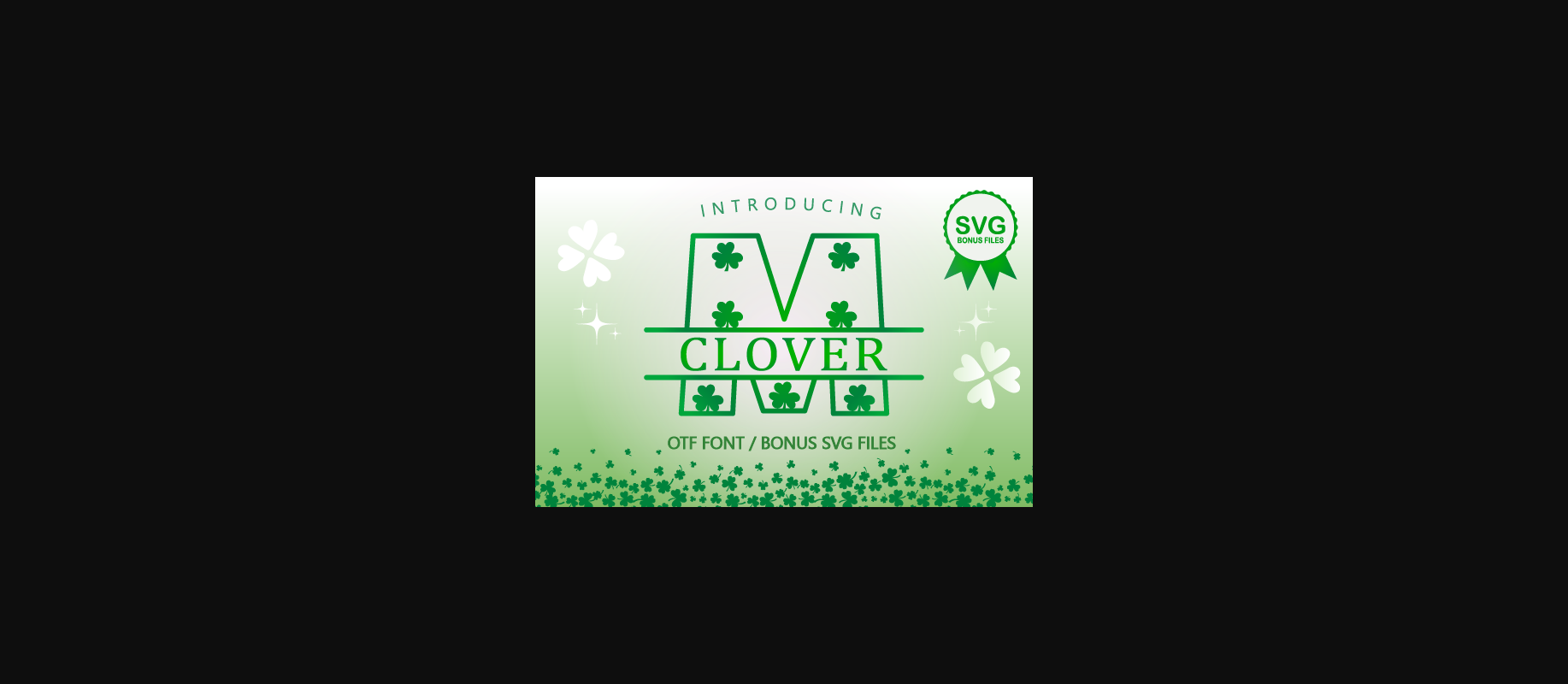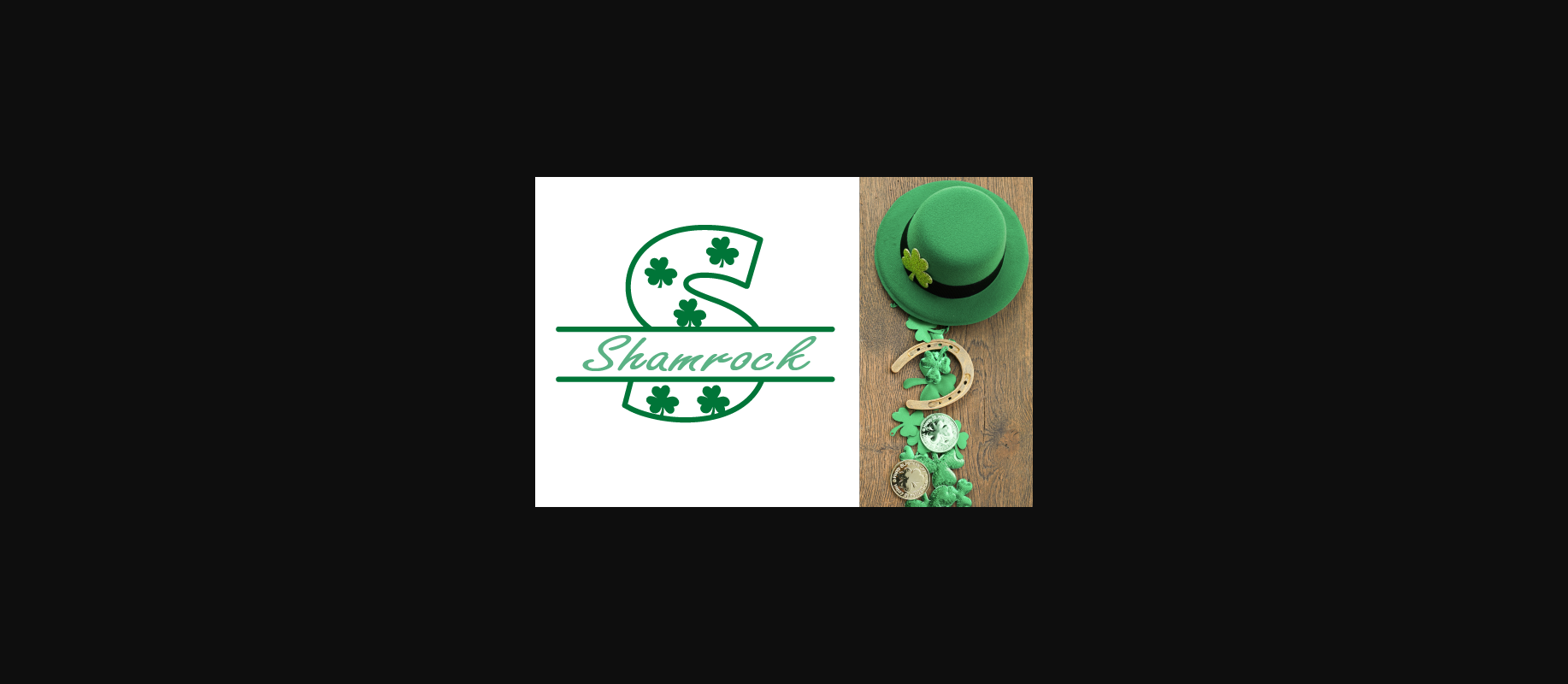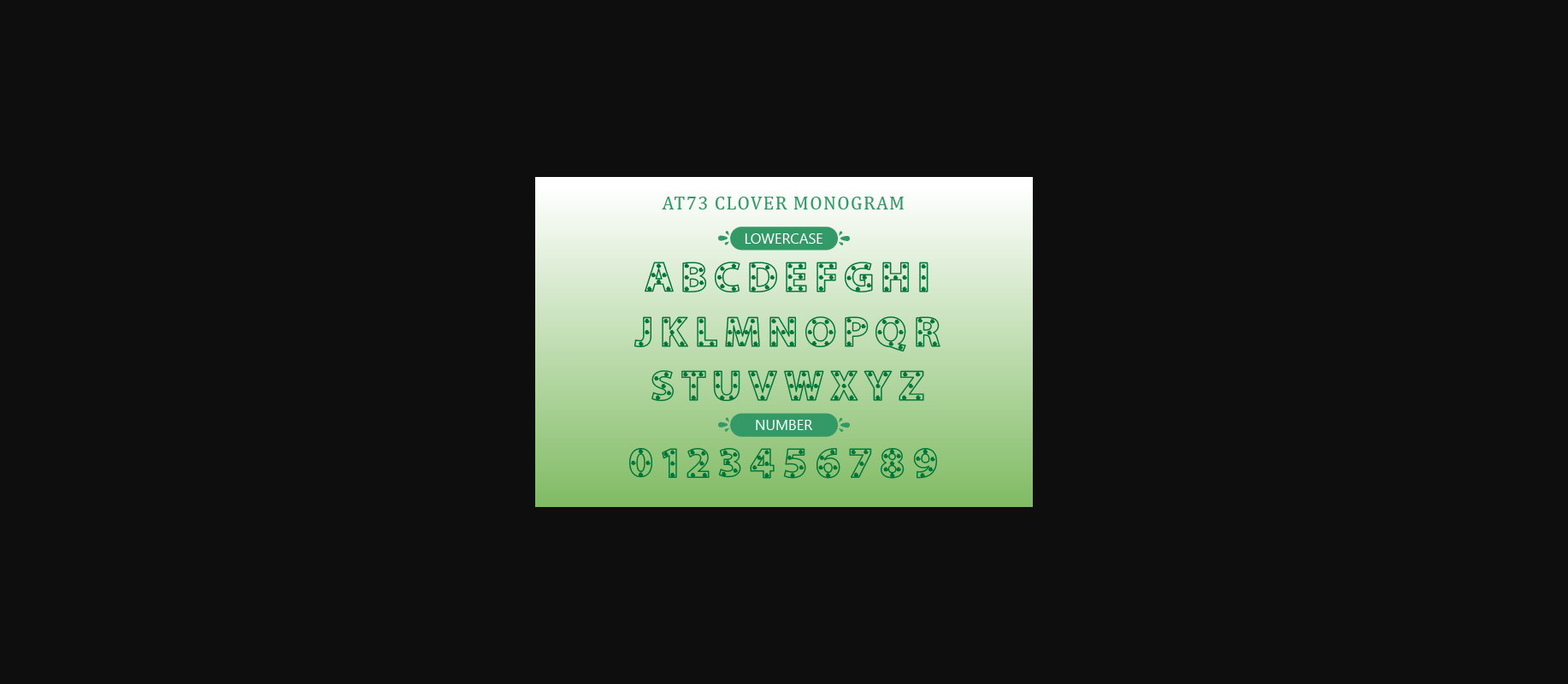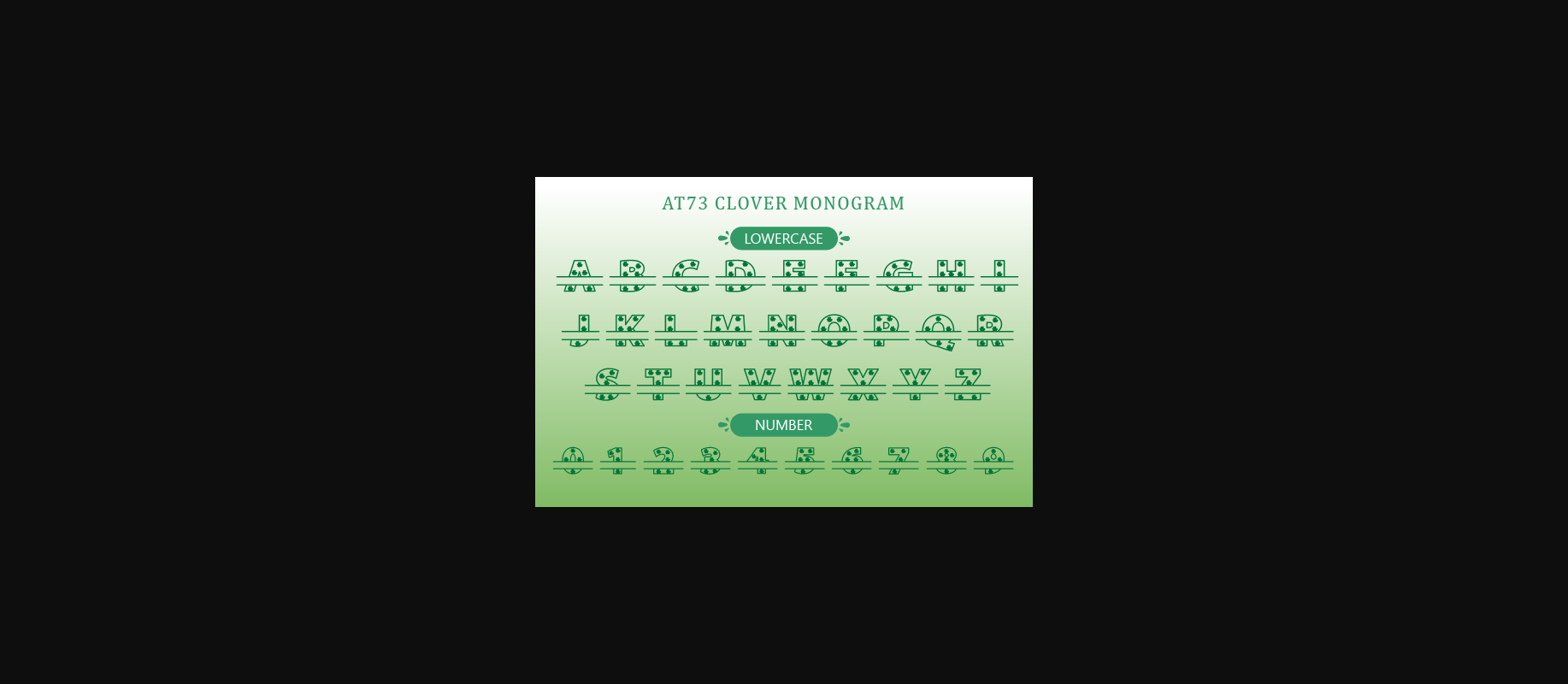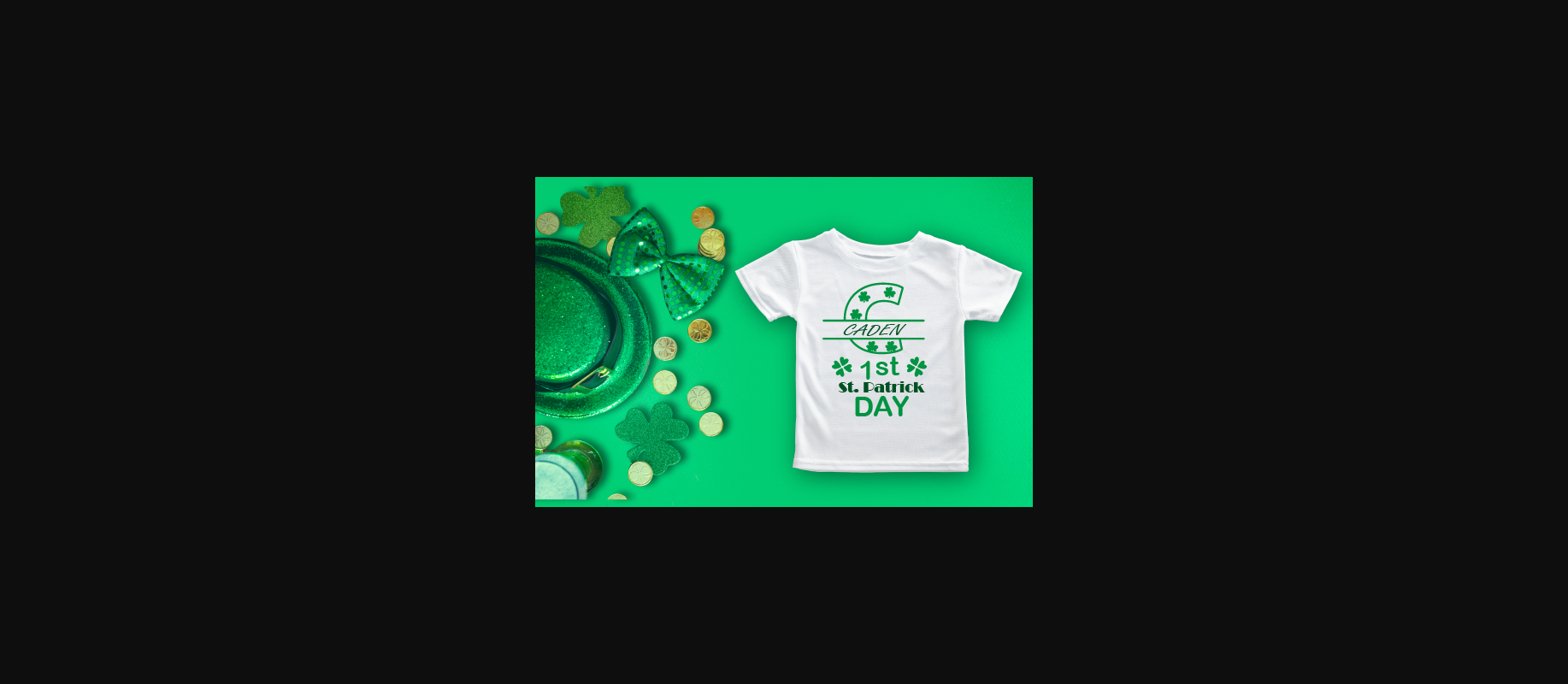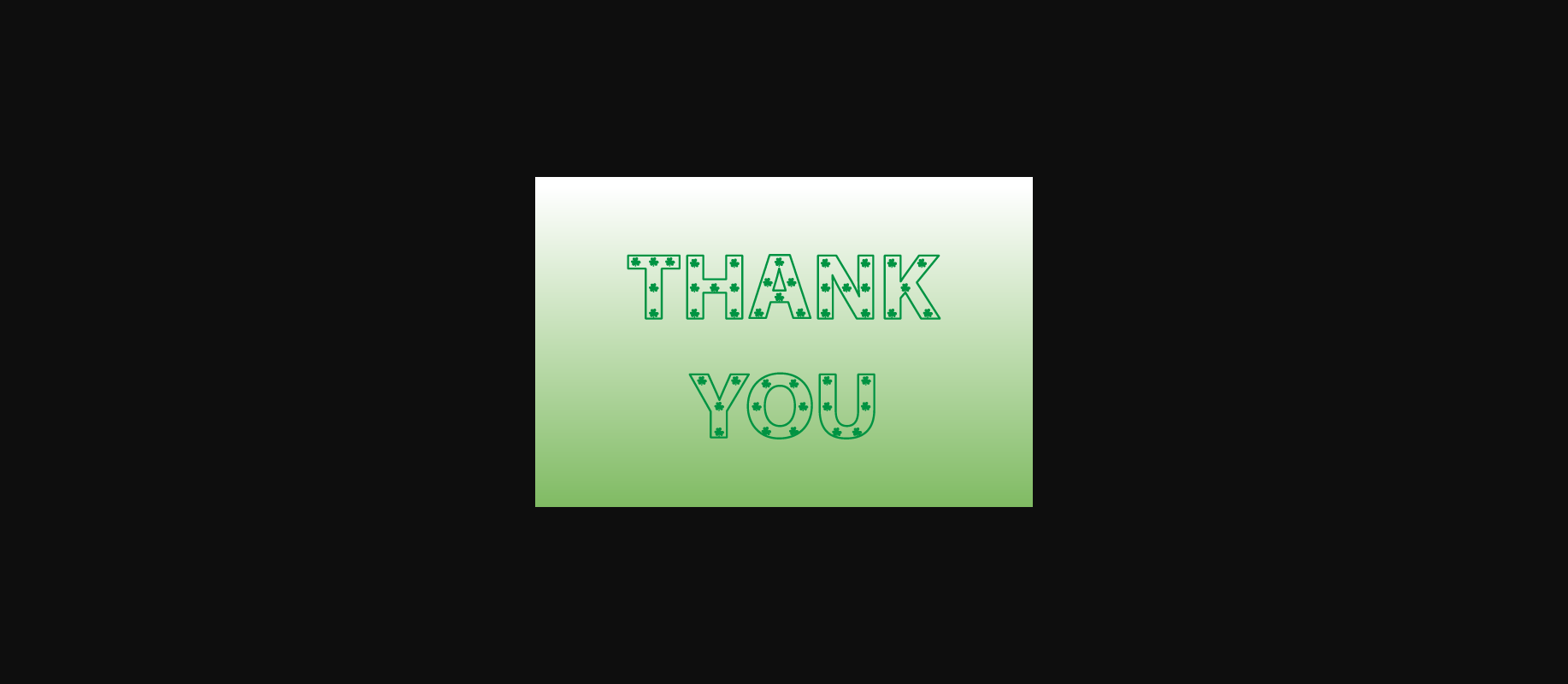
HomeDecorative FontsClover Monogram Font Decorative Fonts Clover Monogram Font FacebookXPinterestWhatsApp 1 of 9 ... Clover Monogram Font Poster 2... Clover Monogram Font Poster 3... Clover Monogram Font Poster 4... Clover Monogram Font Poster 5... Clover Monogram Font Poster 6... Clover Monogram Font Poster 7... Clover Monogram Font Poster 8... Clover Monogram Font Poster 9... About Clover Monogram Font Clover Monogram is name split monogram and regular alphabet in one font. Celebrate St. Patrick’s Day holiday. Easy to create name tag, Invitation card, school worksheet, shirt design etc. Come with Svg files. DOWNLOAD NOW People also explored Molandika Script Lordigart Catskin Hillany Font Vegetables Font Butterfloo Font Martini Script Font Medhom Font Sweet Leaves Monogram Font 286 0 TagsClover Monogram Font Previous articleEaster FontNext articleBunny Easter Font LEAVE A REPLY Cancel reply Comment: Please enter your comment! Name:* Please enter your name here Email:* You have entered an incorrect email address! Please enter your email address here Website: Save my name, email, and website in this browser for the next time I comment. Personal Use Free Carved Wood Personal Use Free Read more about this font Xplor Personal Use Free Read more about this font Styledeep Personal Use Free Read more about this font Authurium Personal Use Free Read more about this font BLOG How to Cut Any Font on Cricut: Convert a Font to SVG (Free) Turn any font into a clean SVG so it cuts crisp on Cricut - a quick 3-step workflow using a free font-to-SVG tool. Transform Your Website: Elevate Your Typography with 7 Best Web Font Generators Exploring Font Trends Fonts That Capture the Spirit of New York City